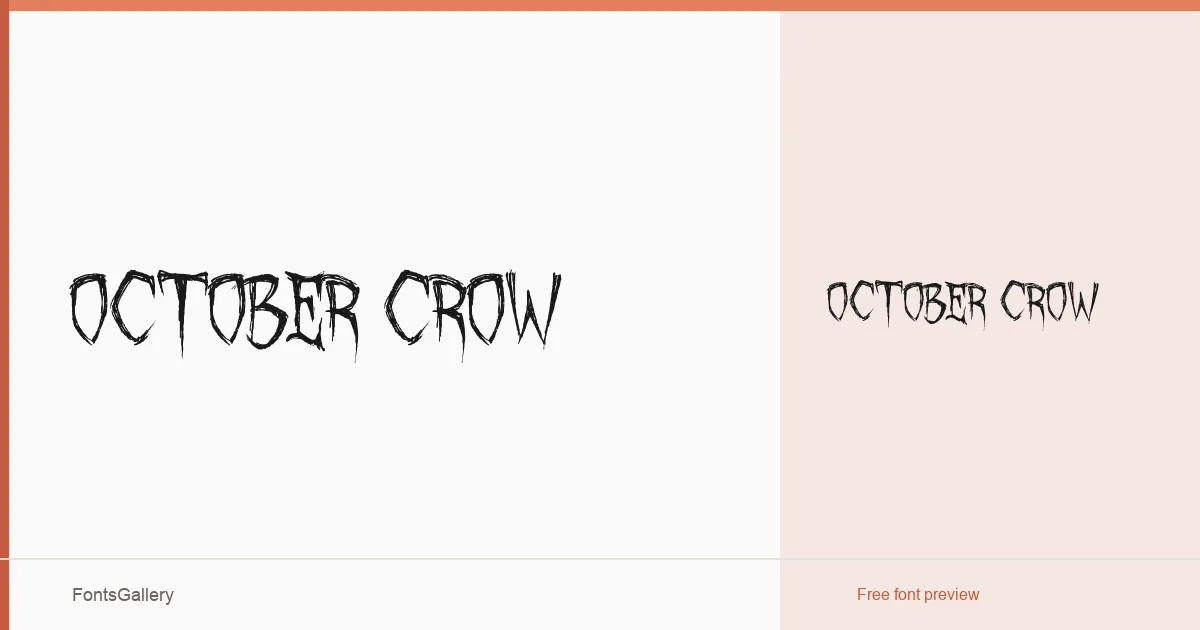
About October Crow Font
October Crow is a handwritten typeface designed by Chad Savage and released through Sinister Fonts. It delivers a bold, rustic character that evokes vintage grunge aesthetics, making it a striking choice for projects that demand personality and edge. Its raw, expressive energy sets it apart as a display font with undeniable visual impact.
The letterforms of October Crow draw on a handwritten foundation layered with grunge and vintage textures, giving each character an organic, weathered feel. The bold weight commands attention while the rustic, rough-edged details lend an authenticity that feels both timeless and rebellious. This combination makes every word set in October Crow feel like it was crafted by hand with intention and grit.
October Crow excels in high-impact visual contexts such as logos, posters, branding campaigns, social media graphics, and t-shirt designs where a bold, vintage-grunge tone is desired. For well-balanced typographic compositions, it pairs effectively with Aresink for a cohesive dark or rustic aesthetic, or with Helvetica to create a striking contrast between raw expressiveness and clean neutrality.